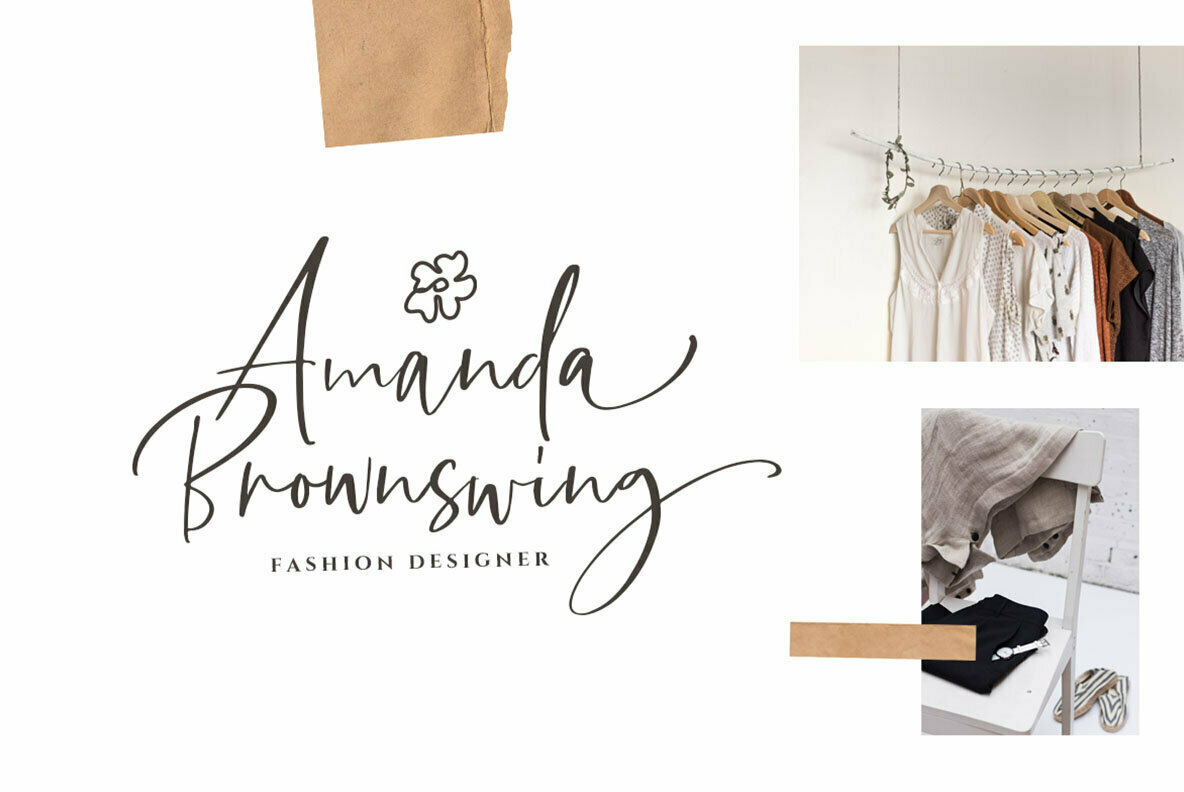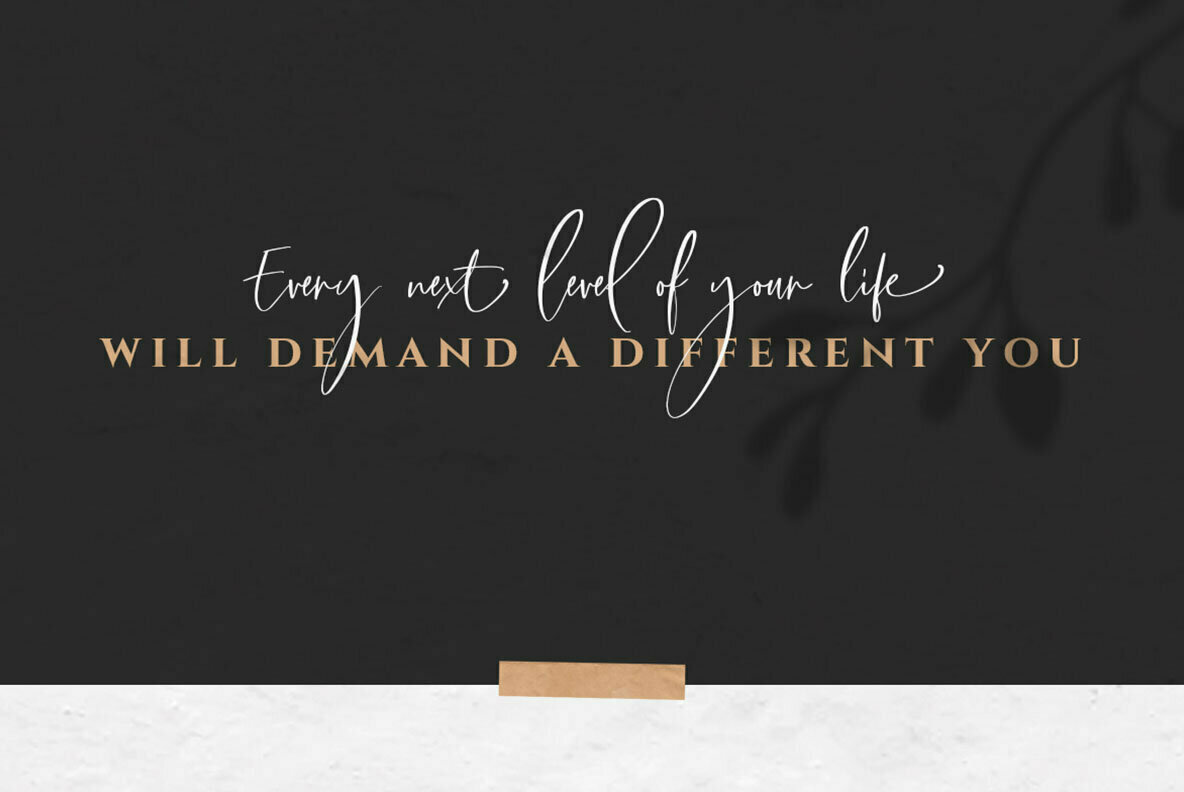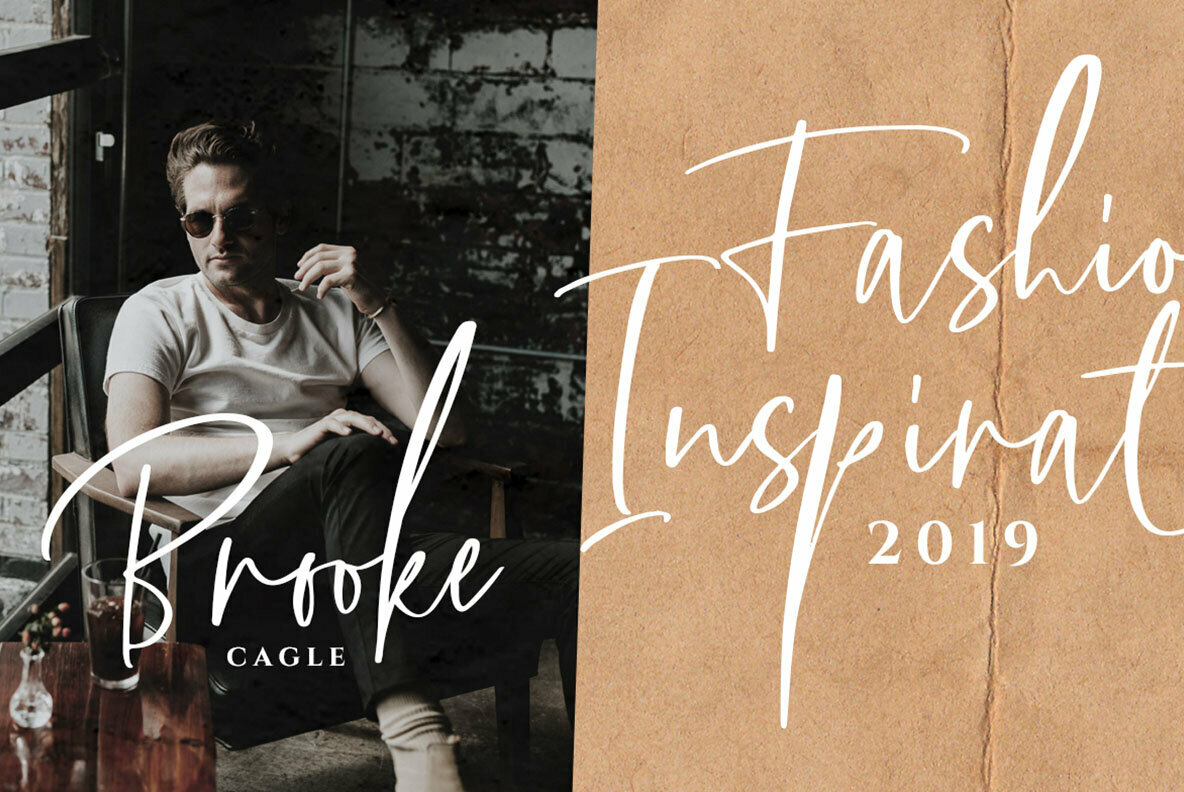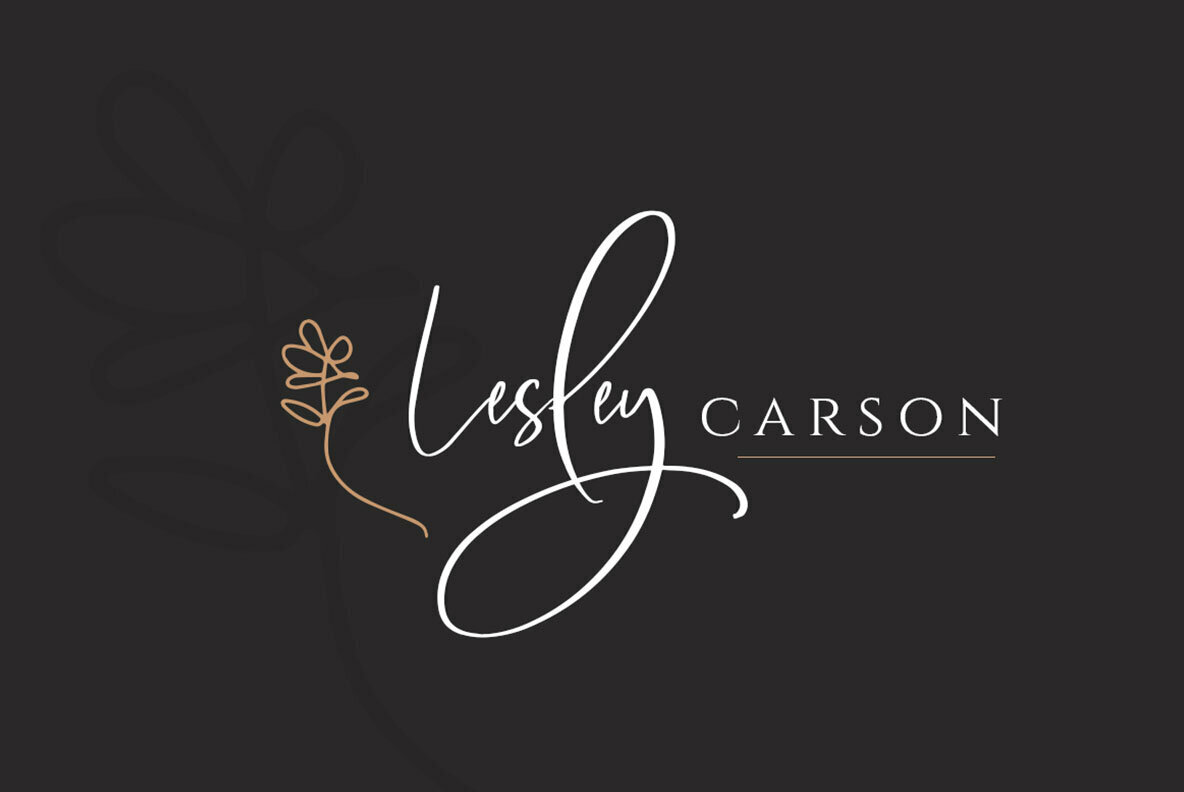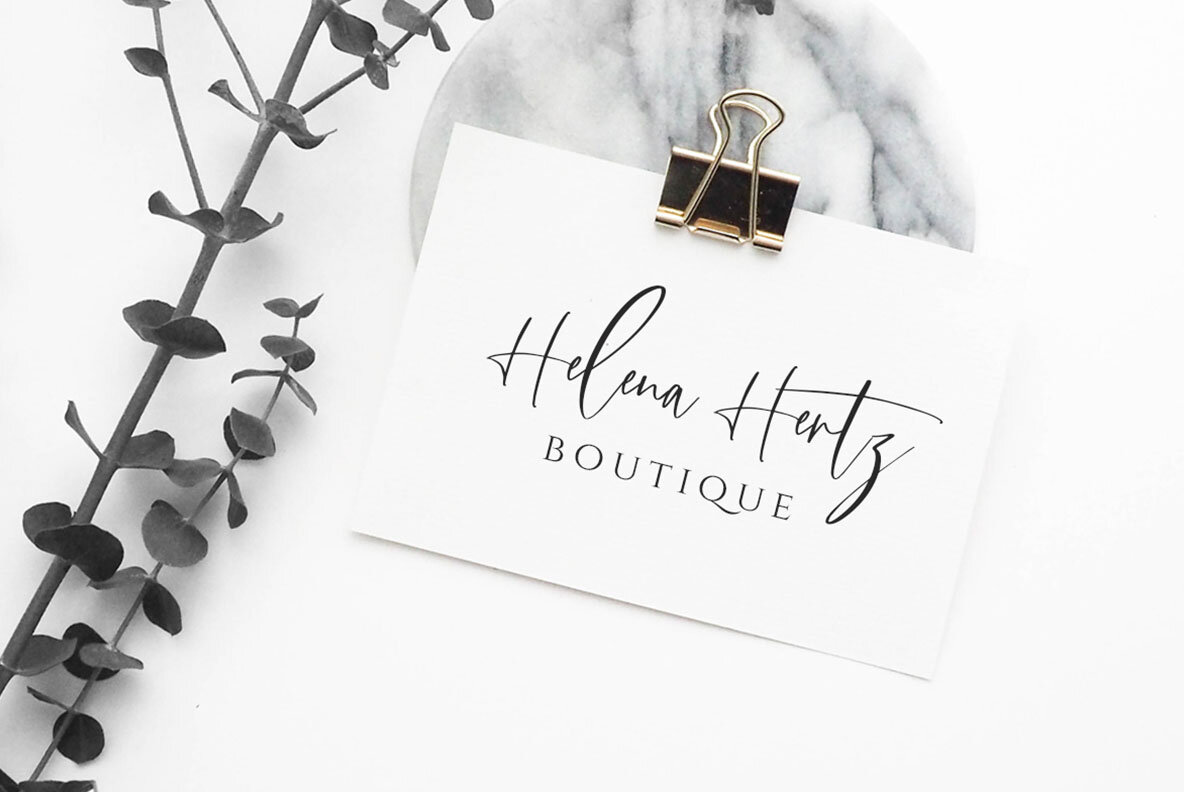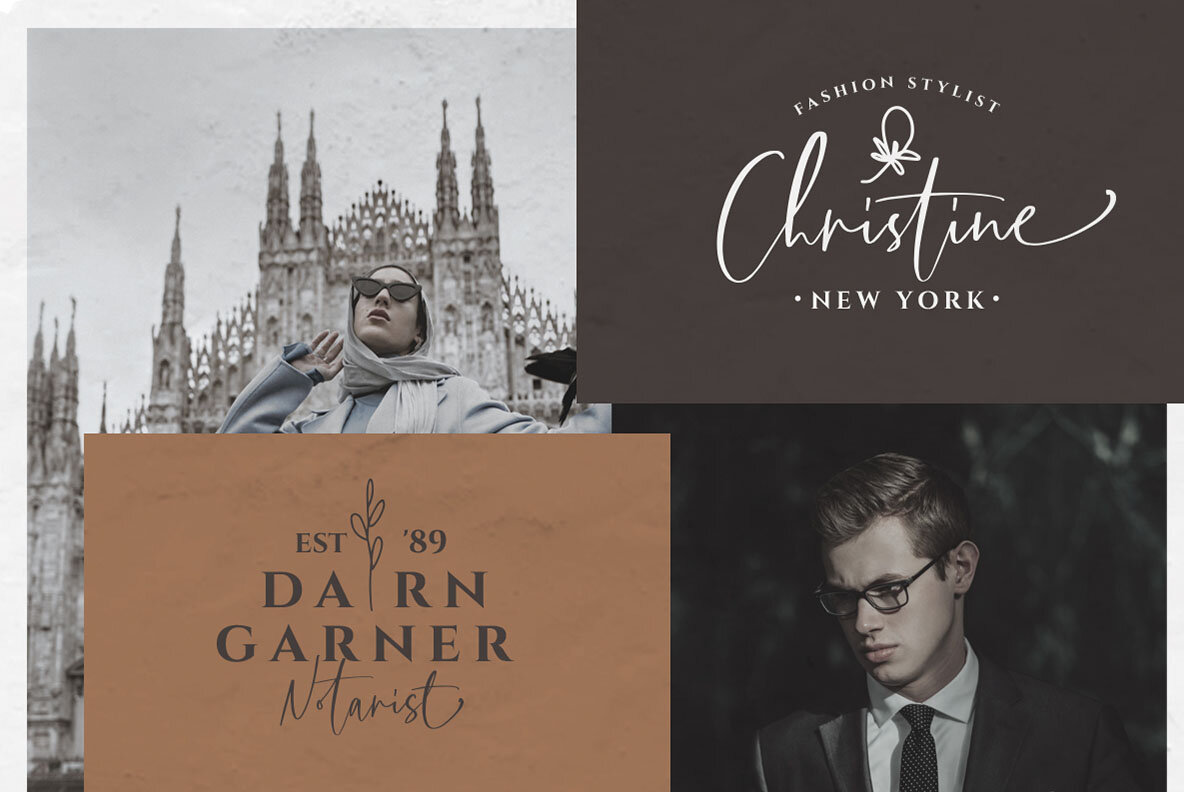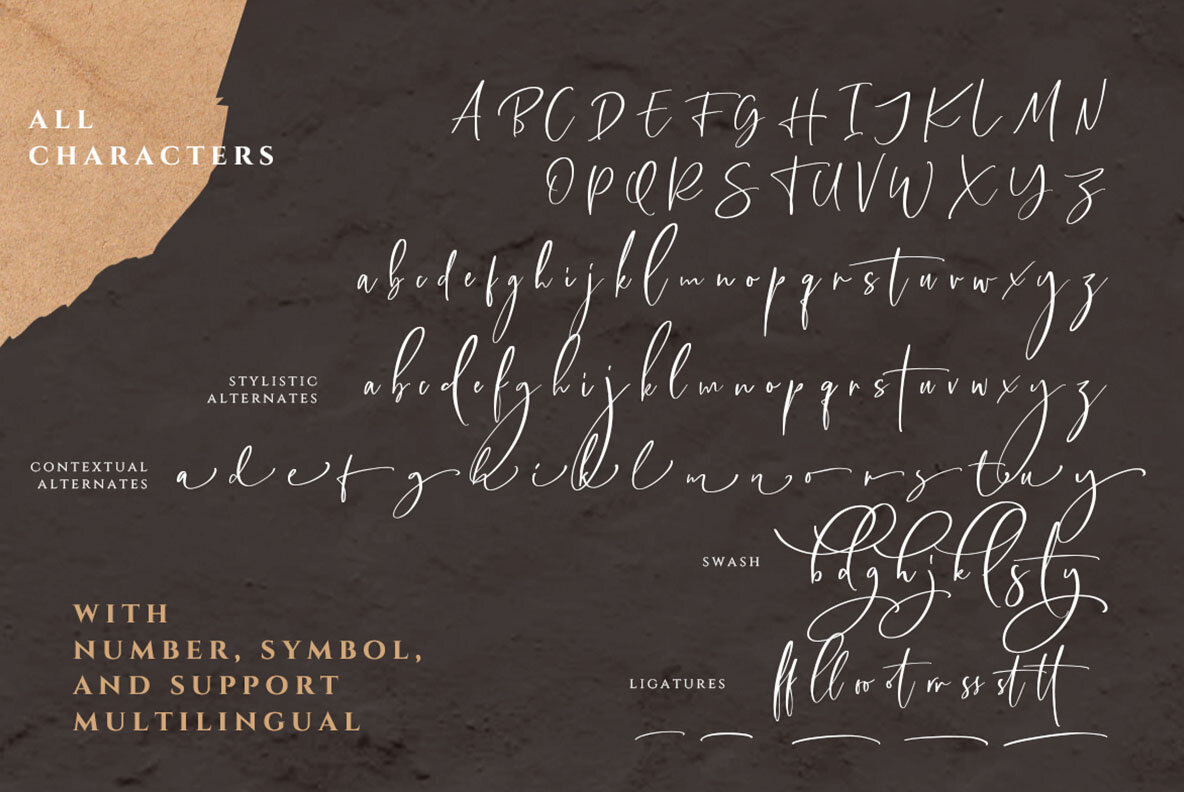
Callistera Script Font
The Callistera Script offers a fluid, expressive style that breathes life into any project. This signature font consists of lowercase and uppercase characters, alongside symbols, providing extensive multilingual support. Perfect for infusing elegance, it comes packed with ligatures, contextual alternates, stylistic alternates, swashes, and underlines to ensure every detail is customizable. The Callistera Script is ideal for logos, fashion designs, wedding invitations, and handwritten quotes. Its elegance and versatility ensure it meets diverse creative needs with sophistication and ease.Callistera Script: Expressive Signature Font